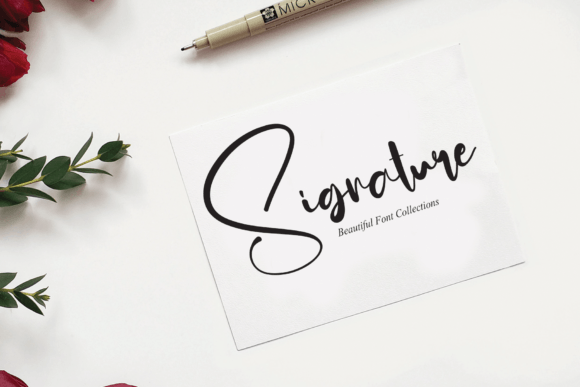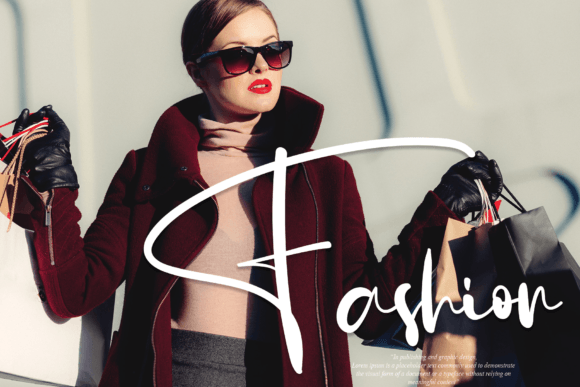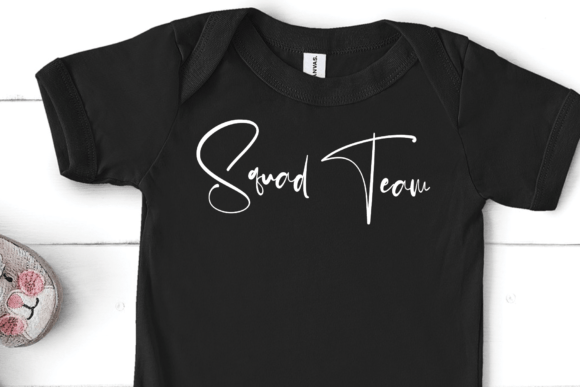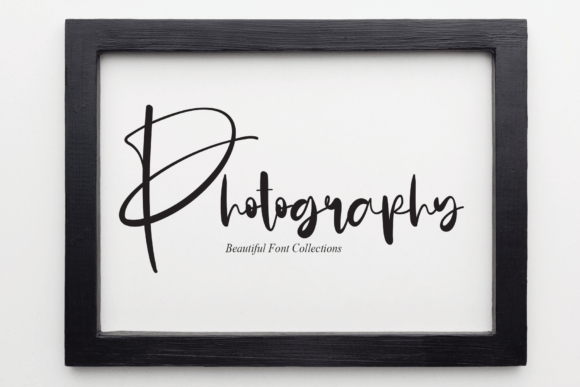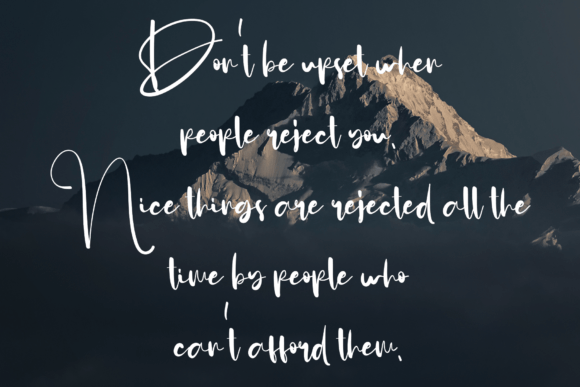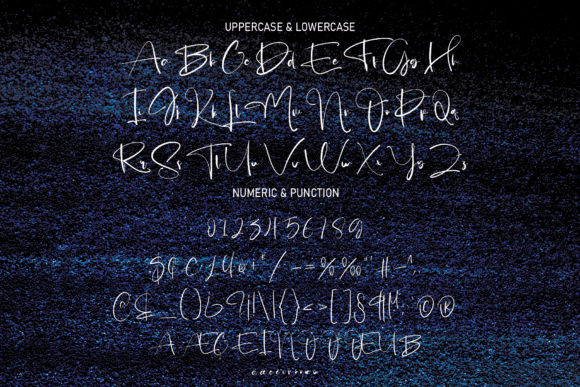
The Magical World of Animate Font: Elevate Your Designs with Elegance
I’ll never forget the time I was working on a DIY project, pouring my heart and soul into creating the perfect Instagram post. I had the concept, the colors, and the graphics, but something was missing – the right font. That’s when I stumbled upon Animate Font, a beautiful handwritten script that added a touch of magic to my design. In this article, I’ll share my experience with Animate Font, its features, and how to make the most of it in your creative projects.
A Personal Review: What I Love About Animate Font
Animate Font has become a staple in my design toolkit, and for good reason. Here are some things I love about it:
- ✨ Elegant and sophisticated: Animate Font adds a touch of luxury to any design.
- ✅ Highly versatile: From Instagram posts to calligraphy scripts, Animate Font adapts seamlessly.
- 💫 Unique character: The font’s handwritten feel sets it apart from more traditional fonts.
While Animate Font is an excellent choice, there are a few things to keep in mind:
- 🤔 Limited use in formal or corporate designs: Animate Font’s elegant feel may not be suitable for more formal projects.
- ⚠️ Occasional kerning issues: As with any font, you may need to adjust kerning for optimal results.
- Experiment with OpenType features, such as glyphs and stylistic alternates, to add visual interest.
Exploring Alternatives: Similar Fonts to Animate
- Lobster: A elegant, cursive script with a sophisticated feel.
- Great Vibes: A stylish, script font with a modern, energetic feel.
- Alex Brush: A lovely, handwritten font with a whimsical, artistic touch.
The Story Behind Animate Font: Designer Inspiration
Animate Font was carefully crafted by a talented designer with a passion for typography. The font’s creator drew inspiration from traditional calligraphy and modern digital design, resulting in a unique and versatile script.
| Font Name | Animate Font |
| What is Animate Font best suited for? | Animate Font is ideal for creative projects, such as Instagram posts, DIY crafts, and calligraphy scripts. |
| Is Animate Font suitable for formal or corporate designs? | While Animate Font is elegant and sophisticated, it may not be the best choice for formal or corporate designs. |